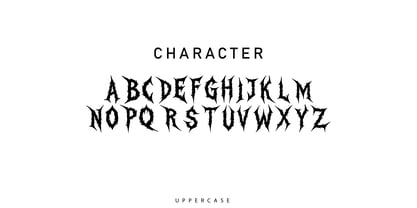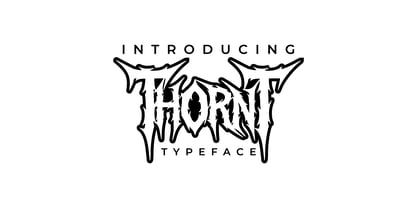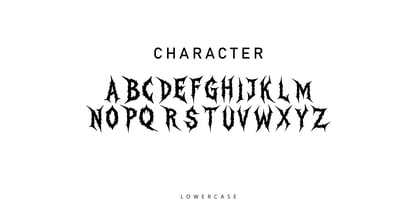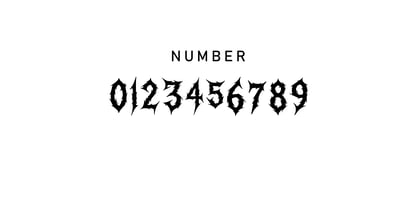
ThornT
by WidyDm
The ThornT Font Family was designed by Widya Dwi Marbani, Widya D Marbani and published by WidyDm. ThornT contains 1 styles. More about this family
Thorn is a bold and aggressive display typeface inspired by sharp spikes and thorny textures. Designed to bring raw energy and a wild aesthetic, this font perfectly captures the essence of metal, rock, and underground culture. Its jagged edges and dynamic letterforms make it ideal for standout visuals and bold statements. Whether you’re creating a band logo, poster, streetwear design, or horror-themed artwork, Thorn Typeface adds intensity and attitude to every project. Its unique handcrafted style ensures that your design will look fierce, edgy, and unforgettable.
Designers: Widya Dwi Marbani, Widya D Marbani
Current Foundry: WidyDm